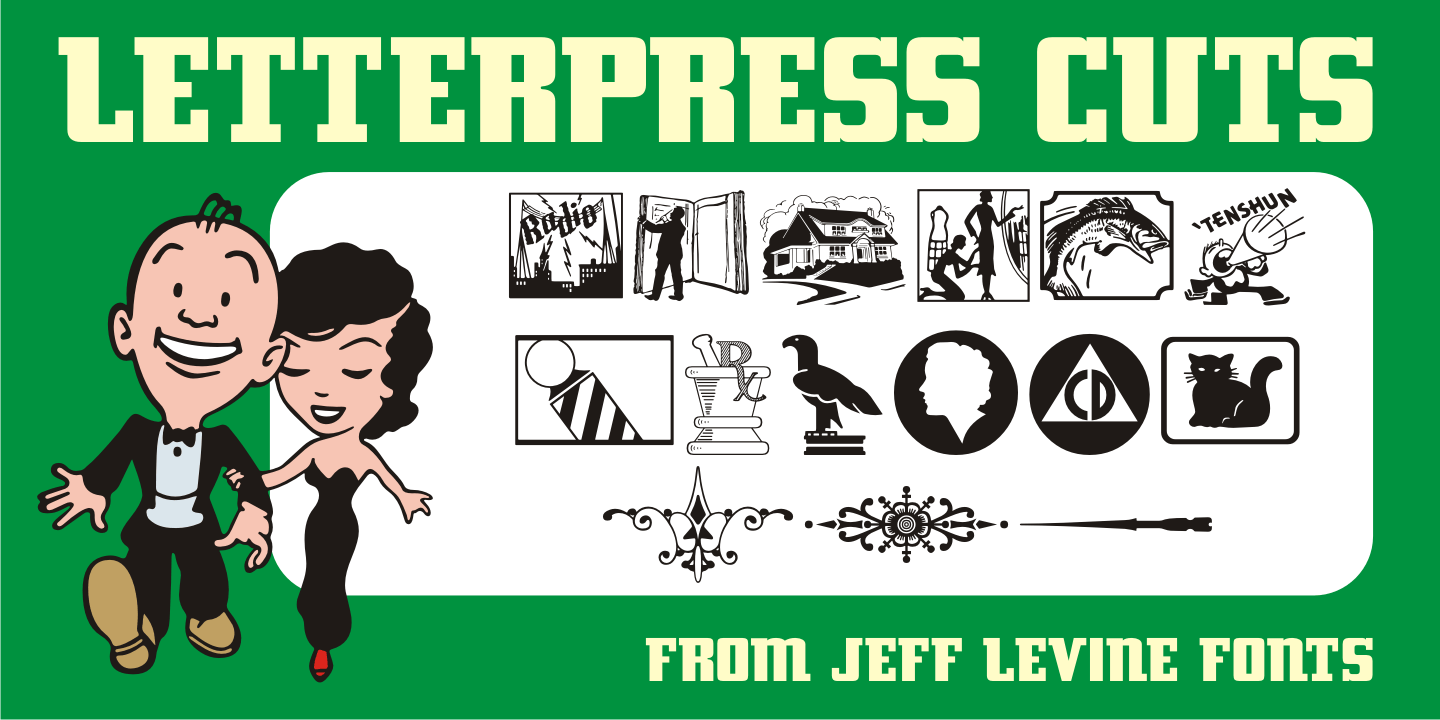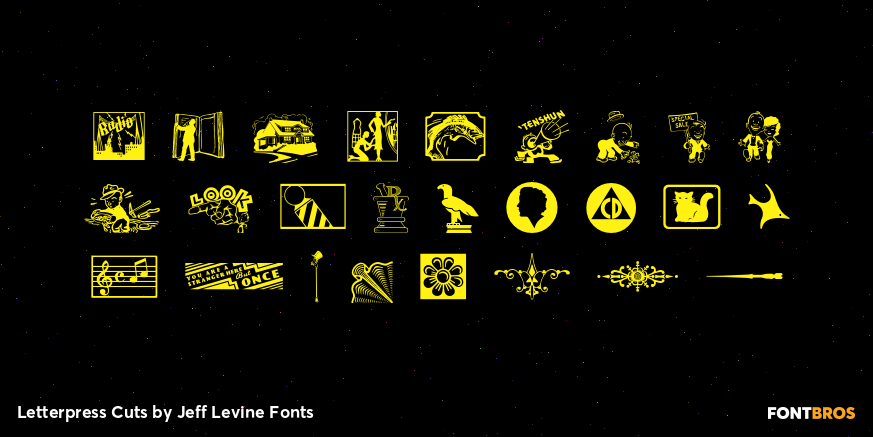
Letterpress Cuts
Here's another fun assortment of vintage cartoons, embellishments, ad cuts and topical illustrations; all contained within Letterpress Cuts JNL.